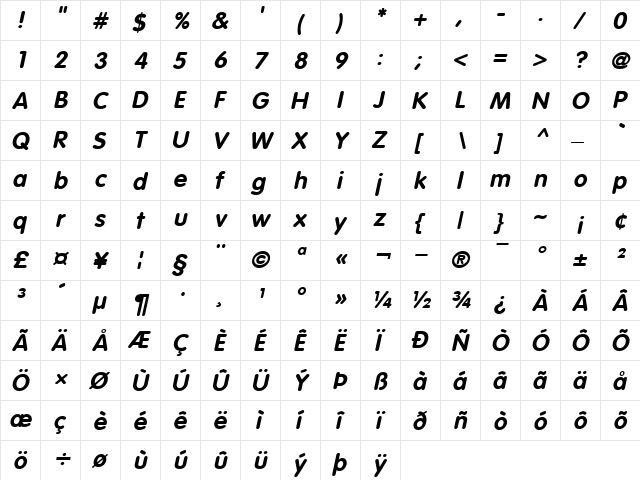
Balloon Bold Oblique
Design Context for Balloon Typeface
Balloon offers clean, dependable letterforms without strong stylistic allegiance, making it a practical choice for designers who need flexibility. Its italic angle brings a sense of urgency and motion to the letterforms. The heavy weight commands attention and anchors typographic hierarchies.
Pro Tip: Use Balloon for emphasis, pull quotes, and subheadings where its slanted energy can add rhythm to the layout.